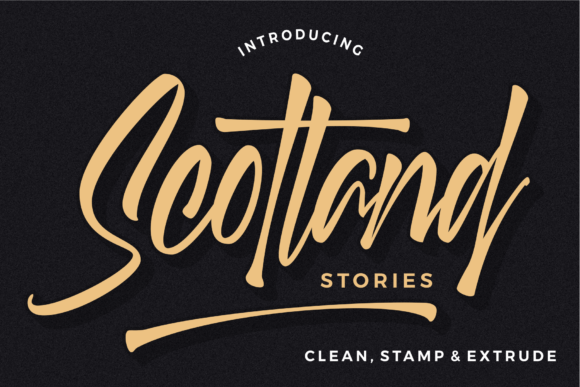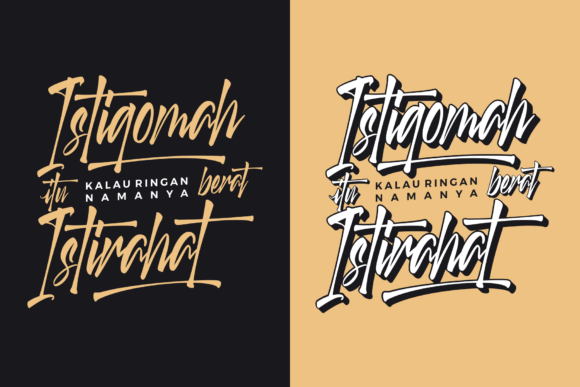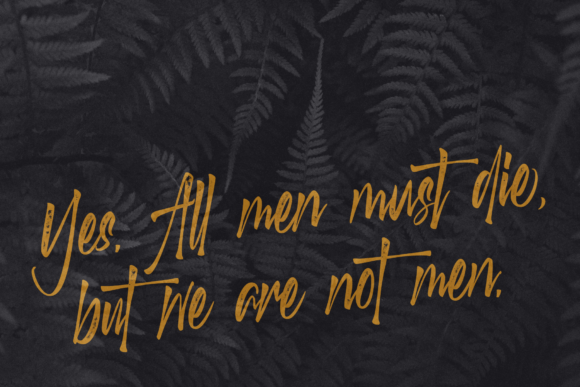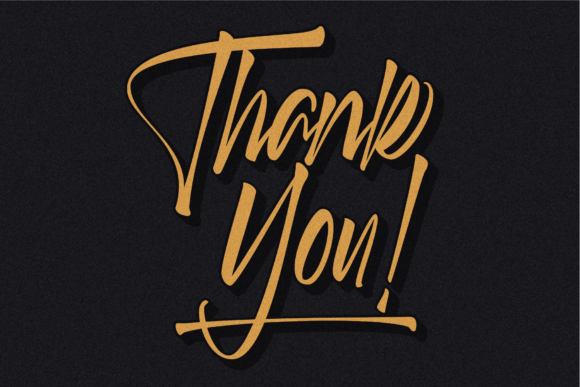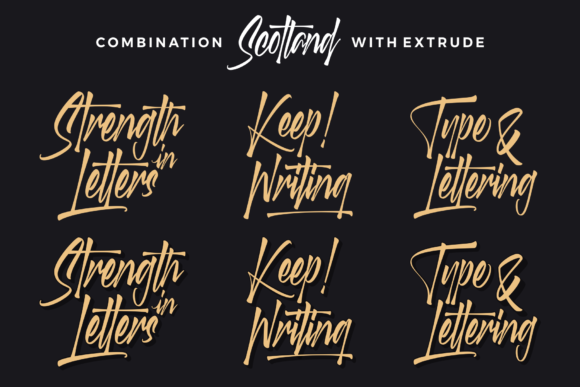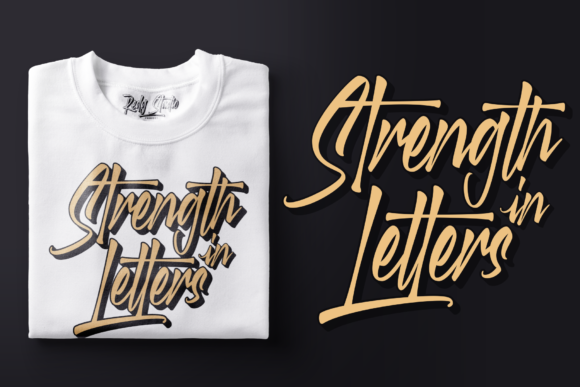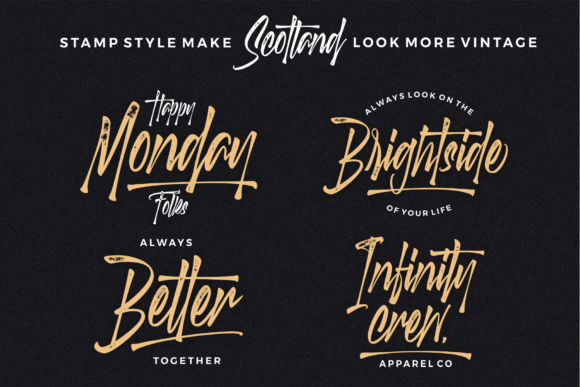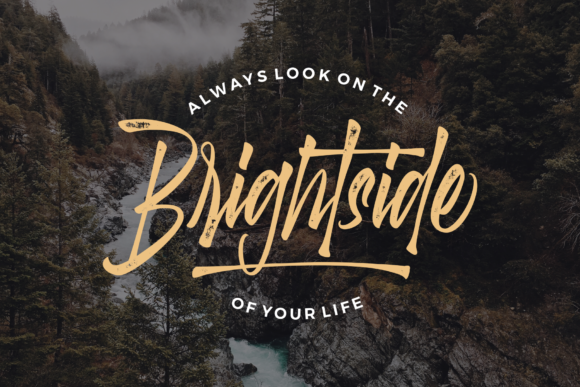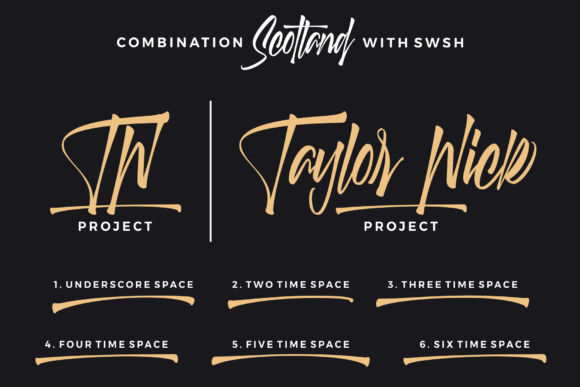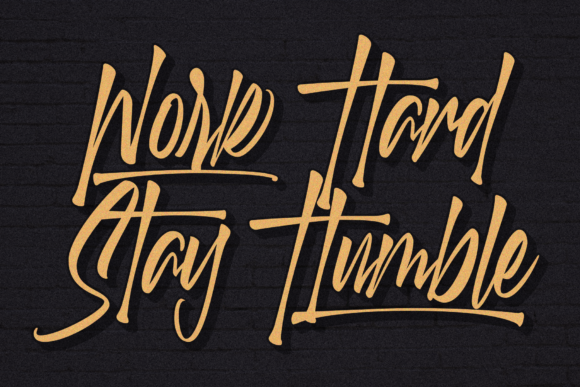
HomeScript FontsScotland Stories Font Script Fonts Scotland Stories Font FacebookXPinterestWhatsApp Scotland Stories Font Poster 2 Scotland Stories Font Poster 3 Scotland Stories Font Poster 4 Scotland Stories Font Poster 5 Scotland Stories Font Poster 6 Scotland Stories Font Poster 7 Scotland Stories Font Poster 8 Scotland Stories Font Poster 9 Scotland Stories Font Poster 10 Scotland Stories Font Poster 11 Scotland Stories Font Poster 12 About Scotland Stories Font Scotland Stories is a handwritten font with a bold twist. Fall in love with its powerful authentic charm. DOWNLOAD ON CREATIVE FABRICAThis font is sold and delivered by Creative Fabrica. Font Canyon may earn a commission if you buy through this link. People also explored Spicy Margarita Font Sunflower Font Dotted Reader Font Summer Flower Font Blystnutter Font Persephone Font Sweet Butter Font Fingerfood Githa Birth Flower Font 310 0 TagsScotland Stories Font Previous articleBiosha FontNext articleMaldins Font LEAVE A REPLY Cancel reply Comment: Please enter your comment! Name:* Please enter your name here Email:* You have entered an incorrect email address! Please enter your email address here Website: Save my name, email, and website in this browser for the next time I comment. Personal Use Free Austin Personal Use Free Read more about this font Lover Loves Personal Use Free Read more about this font Hommy You Personal Use Free Read more about this font Quentin Personal Use Free Read more about this font BLOG Where to Buy American Fonts Online in 2024 Where to Buy American Fonts Online: The Ultimate Guide for 2024 Looking for the perfect American font to elevate your design projects? You're in the... How to Install and Use Fonts on Windows, macOS, and Web Projects Top 10 Handwritten Fonts That Elevate Your Designs The 10 Best Handwriting Fonts to Add Personality to Your Designs